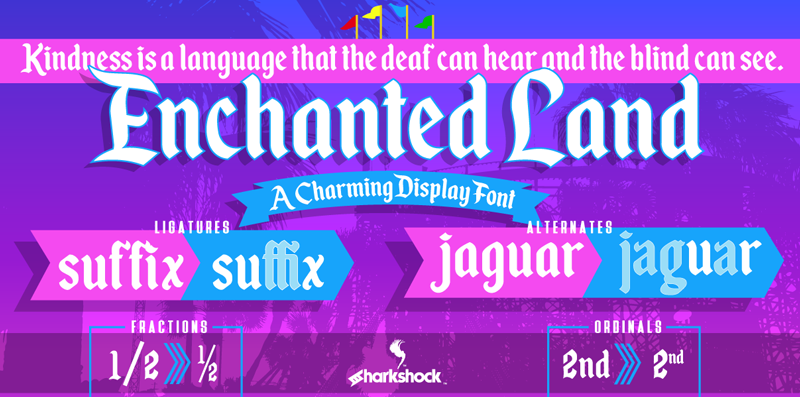
Preview and download Enchanted Land Font. Created by Sharkshock in Gothic Medieval styles with Free for personal use license.
OTF and TTF: Enchanted Land Dennis Ludlow 2016 all rights reserved by Sharkshock dennis@sharkshock.net Welcome to the Enchanted Land where fun has no age limit! This display font borrows obvious inspiration from the classic signage used by the famous west coast amusement park. There are several others floating out there but this one features a clean glyph set with many European characters and diacritic support for extended latin. The whimsical style of the caps flow with consistency and shows up in the numbers and many other marks as well. OTF features like kerning, ordinals, fractions, alternates, and proportional numbers and punctuation for uppercase characters are all included. All caps are NOT recommended. Use Enchanted Land for a children's project, book title, or anywhere you'd like a little magic. This font like my others are free for personal use only as long as this readme file stays intact. For commercial use please contact me at dennis@sharkshock.net to discuss an end user license agreement. You can also visit www.sharkshock.net/license for more info. I also design custom fonts for businesses, logos, and many other things. If you'd like to leave me a PayPal donation you can use my email address above. Your generosity will be most appreciated! More... |